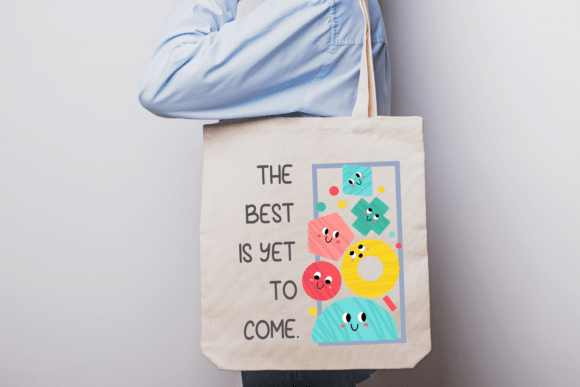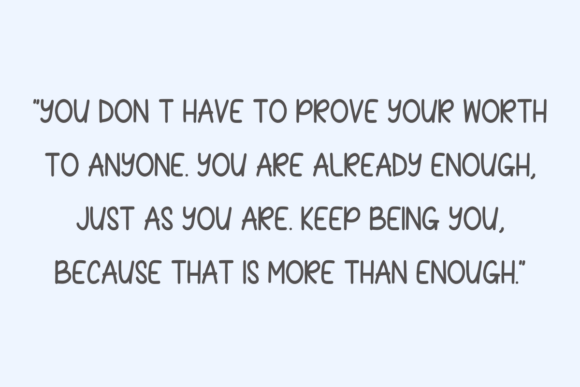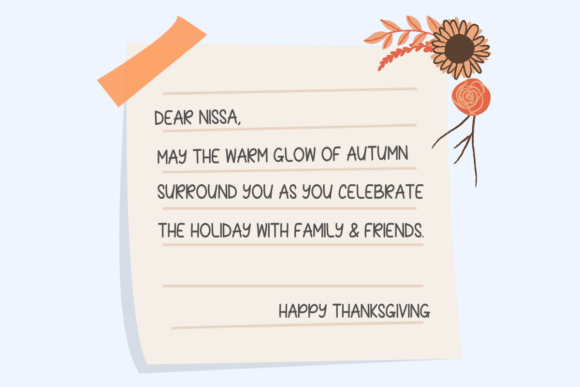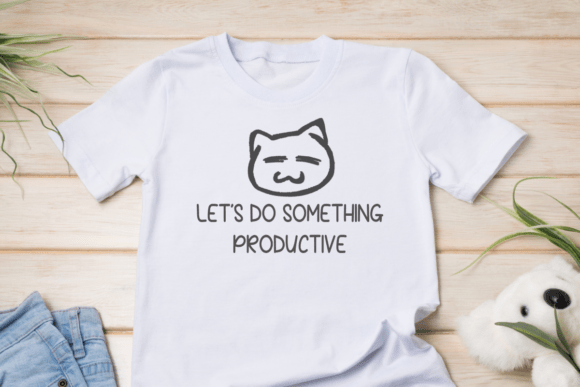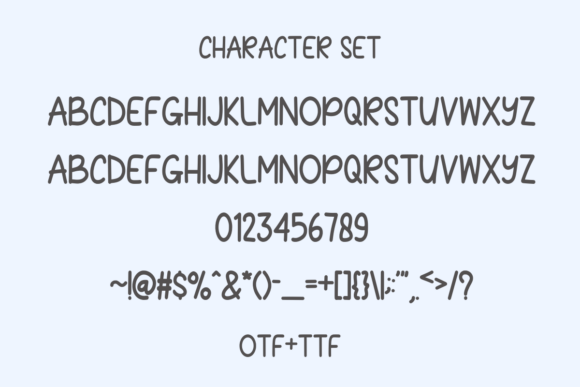
Introducing Blue Craft Font: The Perfect Playful Handwritten Font for Crafters and Designers
Are you a crafter, designer, or maker looking for a font that can add a personal touch to your DIY projects? Look no further than Blue Craft Font, a playful handwritten font that’s perfect for a wide range of creative applications. In this article, we’ll explore the features and benefits of Blue Craft Font, and show you how it can elevate your crafts, planners, KDP, stickers, greeting cards, and more.
What is Blue Craft Font?
Blue Craft Font is a unique and charming handwritten font that’s designed to bring a smile to your face. With its cute and friendly style, it’s the perfect choice for crafters, designers, and makers who want to add a personal touch to their projects. Whether you’re creating crafts, planners, or DIY projects, Blue Craft Font is sure to make your designs stand out.
Features of Blue Craft Font
So, what makes Blue Craft Font so special? Here are just a few of its key features:
- Playful handwritten style: Blue Craft Font has a fun and playful handwritten style that’s perfect for adding a personal touch to your projects.
- Cute and friendly: The font’s cute and friendly style makes it perfect for crafts, planners, and DIY projects that require a touch of whimsy.
- Versatile: Blue Craft Font is versatile and can be used for a wide range of applications, from crafts and planners to KDP, stickers, and greeting cards.
- Perfect for Cricut and sublimation: The font is optimized for use with Cricut and sublimation, making it perfect for crafters and designers who use these tools.
Uses for Blue Craft Font
So, what can you use Blue Craft Font for? The possibilities are endless! Here are just a few ideas to get you started:
- Crafts: Use Blue Craft Font to add a personal touch to your crafts, from scrapbooking and card making to sewing and embroidery.
- Planners: Add a touch of whimsy to your planners and journals with Blue Craft Font.
- KDP: Use Blue Craft Font to create eye-catching KDP titles and descriptions that will help your books stand out.
- Stickers: Create fun and colorful stickers with Blue Craft Font that are perfect for decorating your planners, journals, and crafts.
- Greeting cards: Use Blue Craft Font to create personalized greeting cards for special occasions.
Benefits of Using Blue Craft Font
So, why should you choose Blue Craft Font for your projects? Here are just a few benefits of using this amazing font:
- Adds a personal touch: Blue Craft Font adds a personal touch to your projects, making them more unique and special.
- Versatile: Blue Craft Font is versatile and can be used for a wide range of applications.
- Perfect for crafters and designers: The font is specifically designed with crafters and designers in mind, making it the perfect choice for anyone who loves DIY projects.
In conclusion, Blue Craft Font is a playful handwritten font that’s perfect for crafters, designers, and makers. With its cute and friendly style, it’s the perfect choice for adding a personal touch to your DIY projects. Whether you’re creating crafts, planners, KDP, stickers, greeting cards, or more, Blue Craft Font is sure to make your designs stand out. So why wait? Download Blue Craft Font today and start creating amazing projects!